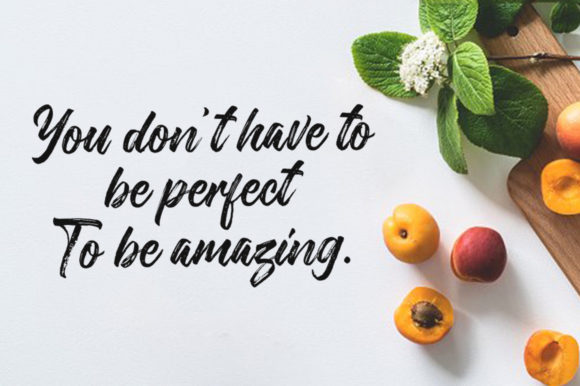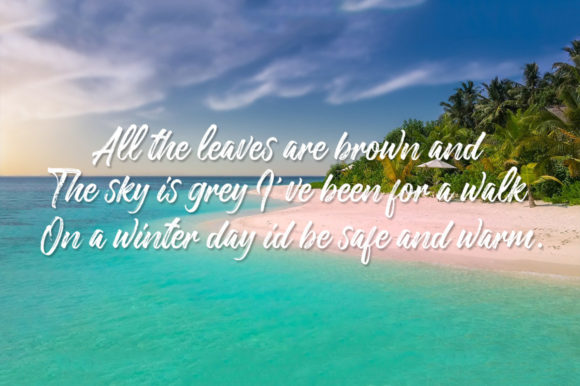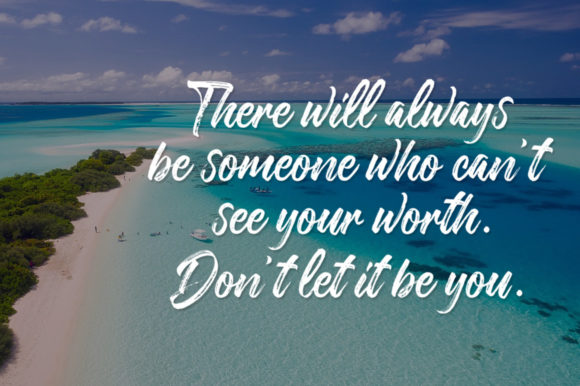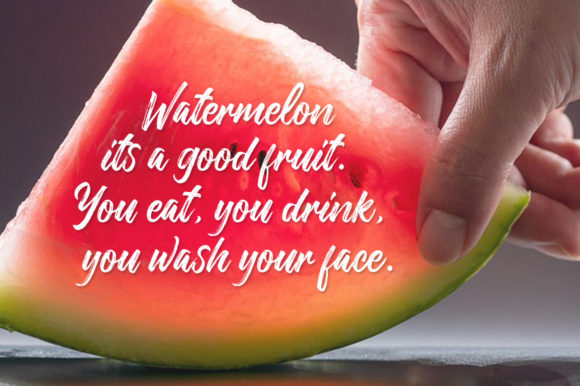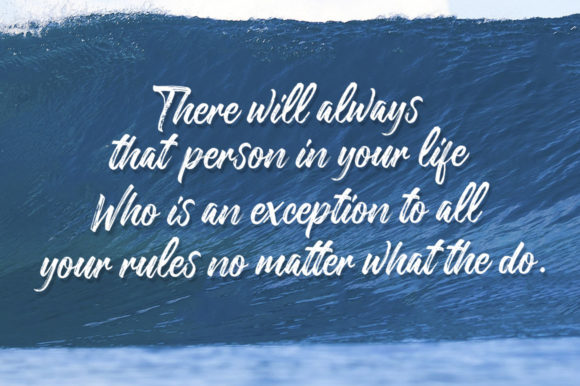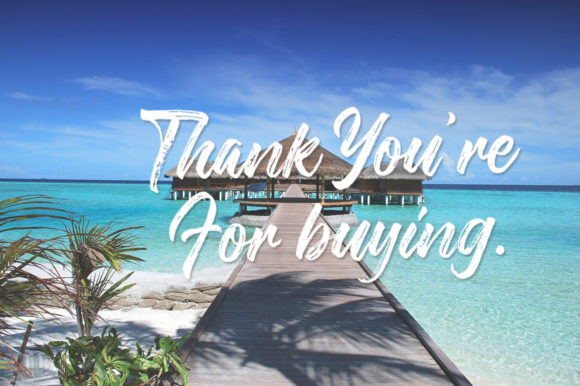
Nautical Font
About Nautical Font
Introducing “Nautical,” a lovely brushed handwritten font that exudes elegance and charm. With its sweet flow and exquisite style, this font is perfect for a wide range of design projects.
One of the standout features of “Nautical” is its brush-like texture, which adds a touch of organic warmth and authenticity to your designs. The flowing strokes and natural imperfections give this font a unique character, making it ideal for creating personalized wedding invitations, heartfelt thank-you cards, and beautiful stationary art.
The versatility of “Nautical” allows it to shine across various design mediums. Whether you’re creating eye-catching social media posts, captivating posters, or engaging blog graphics, this font will make your content stand out. Its soft and graceful appearance adds a touch of elegance to any visual communication.
When used in wedding invitations, “Nautical” brings a romantic and intimate feel to the design. The handwritten brush strokes create a sense of personalization and convey the beauty of handwritten messages. Combined with delicate flourishes and ligatures, this font elevates the aesthetic of your wedding stationery and creates a lasting impression on your guests.
Beyond weddings, “Nautical” can be applied to a wide range of design projects. Its versatility allows you to explore various creative avenues, including branding, logo design, packaging, and more. The soft curves and gentle strokes of this font evoke a sense of warmth and approachability, making it a great choice for businesses and brands that want to convey a friendly and inviting image.
Additionally, “Nautical” is well-suited for social media posts and digital graphics. Whether you’re sharing inspirational quotes, announcing special promotions, or showcasing your creative work, this font adds a touch of elegance and sophistication to your visual content. Its unique brush texture ensures that your designs stand out and capture the attention of your audience.
Overall, “Nautical” is a captivating brushed handwritten font that brings beauty and grace to your design projects. With its sweet flow, exquisite style, and versatility, this font is the perfect choice for creating stunning wedding invitations, captivating social media posts, and much more. Fall in love with the charm of “Nautical” and watch as it enhances the visual appeal of your designs.